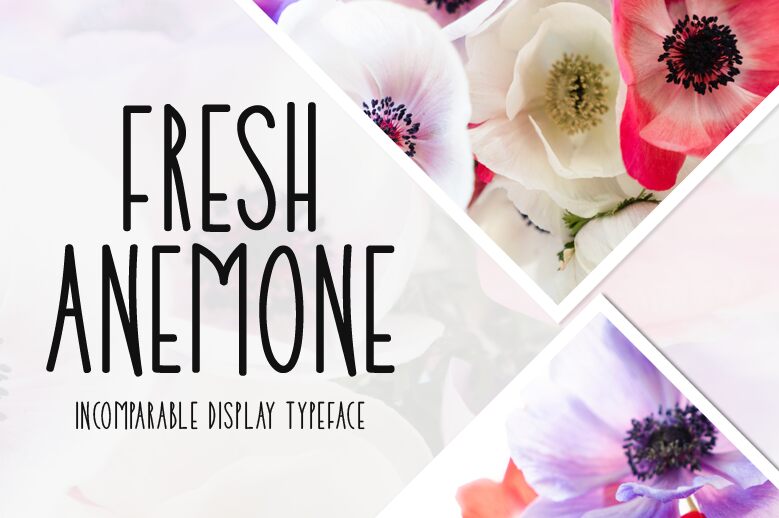
Fresh Anemone, a captivating handwritten font by Md Shohail Bhuian, breathes life into your projects. With its semi-light weight and extra-condensed width, this font exudes elegance and modernity. Perfect for branding, invitations, and packaging designs that require a touch of sophistication. Fresh Anemone adds a personal and artistic flair to logos, social media posts, and editorial layouts alike. Its flowing curves and script-like appearance make it an ideal choice for wedding stationery or fashion magazines seeking to evoke romance and grace. Elevate your designs with the timeless charm of Fresh Anemone.
Fresh Anemone